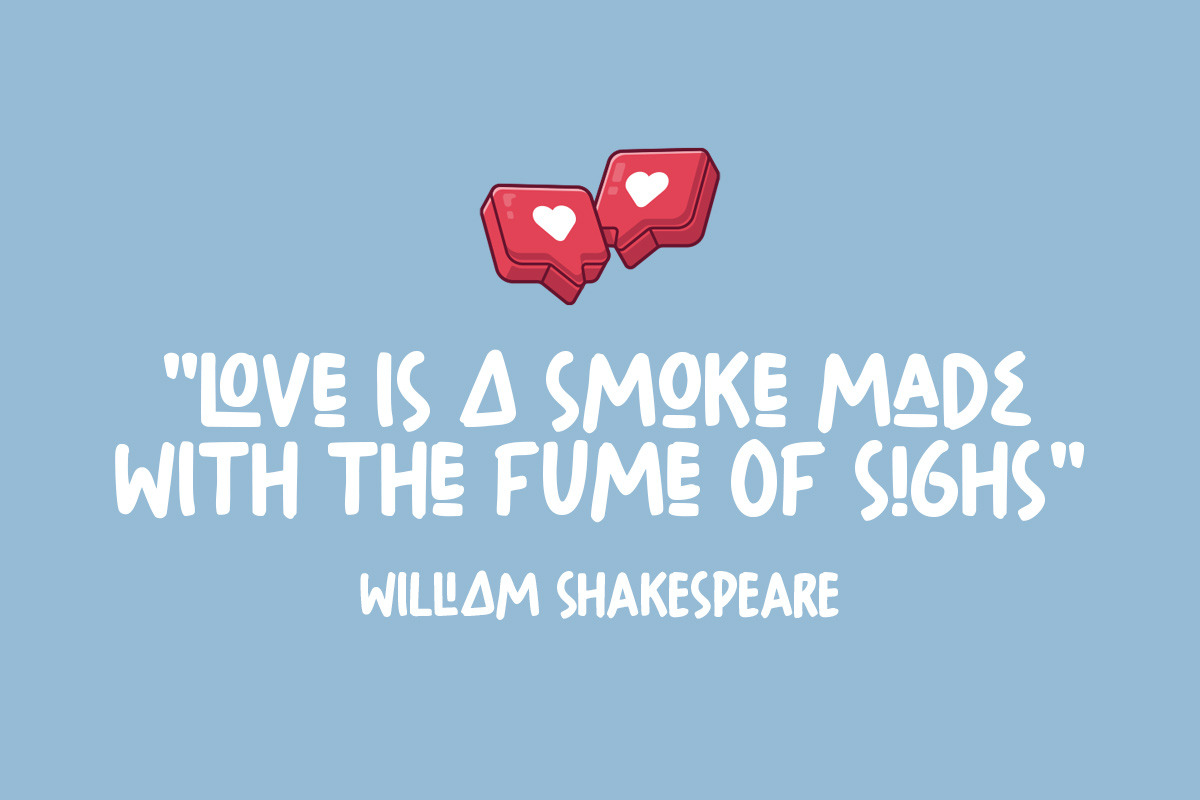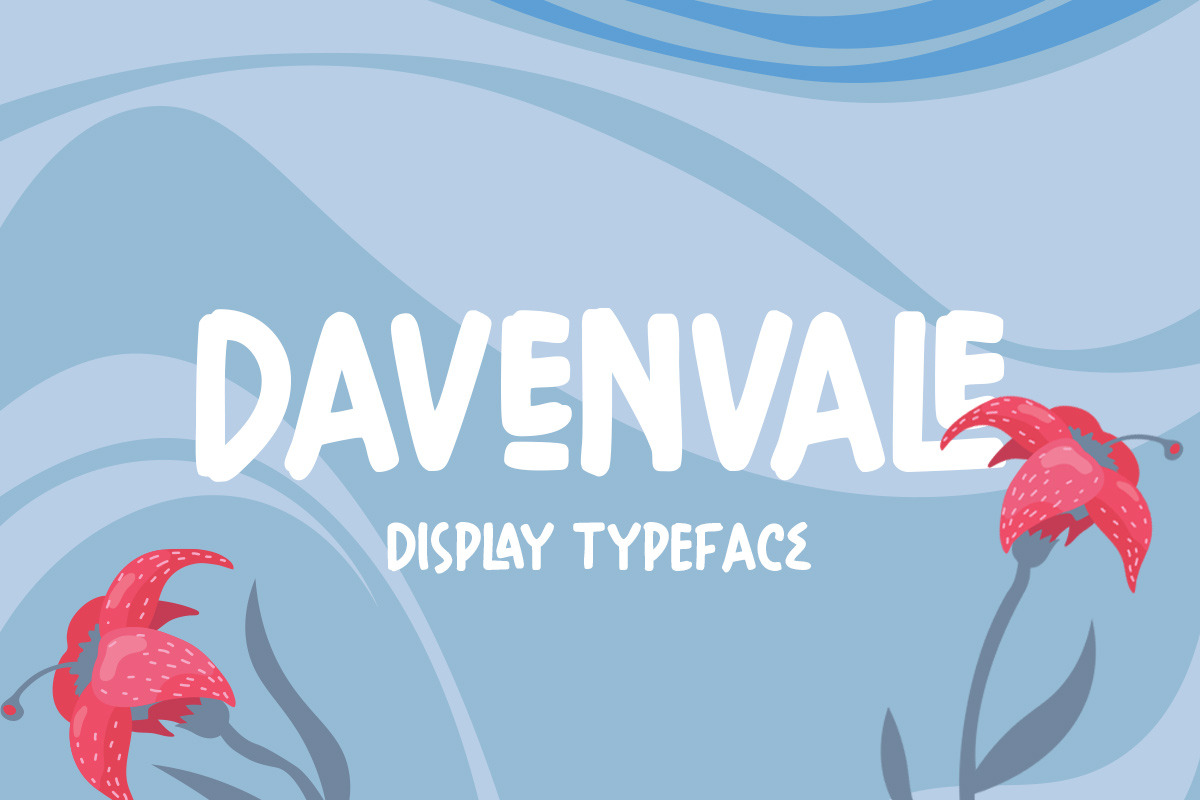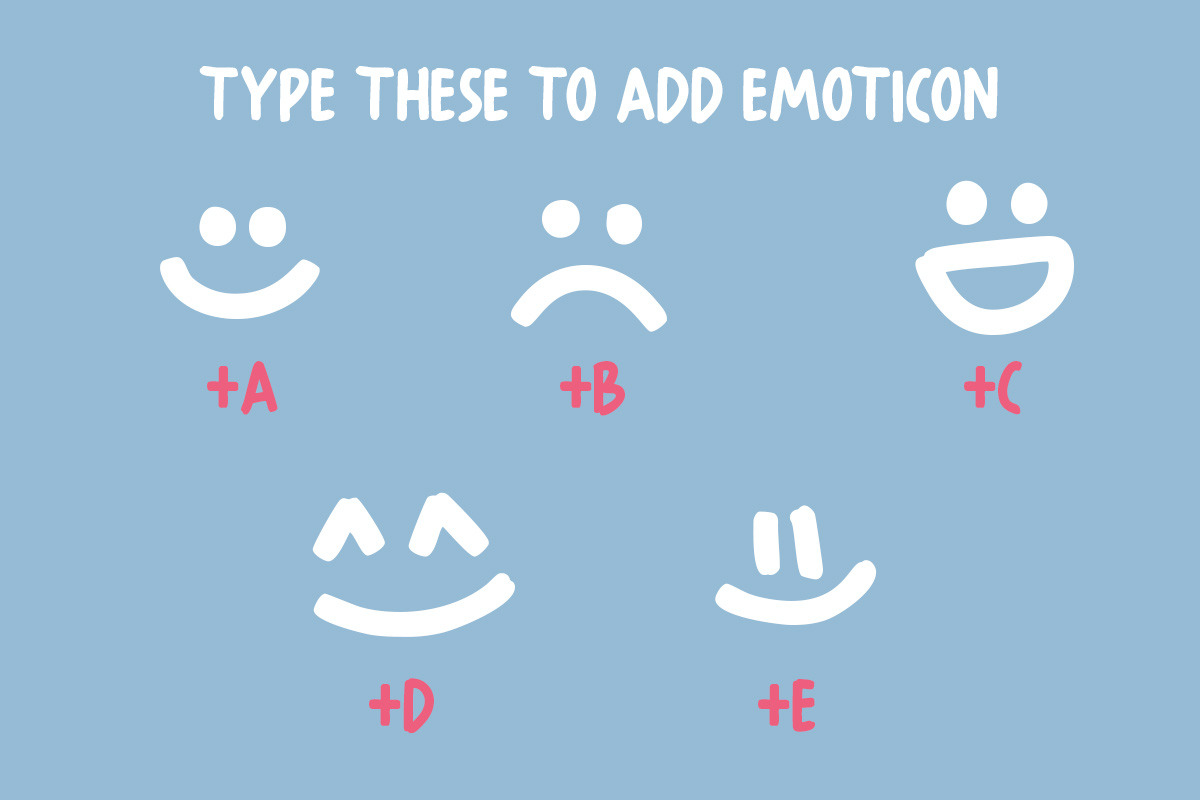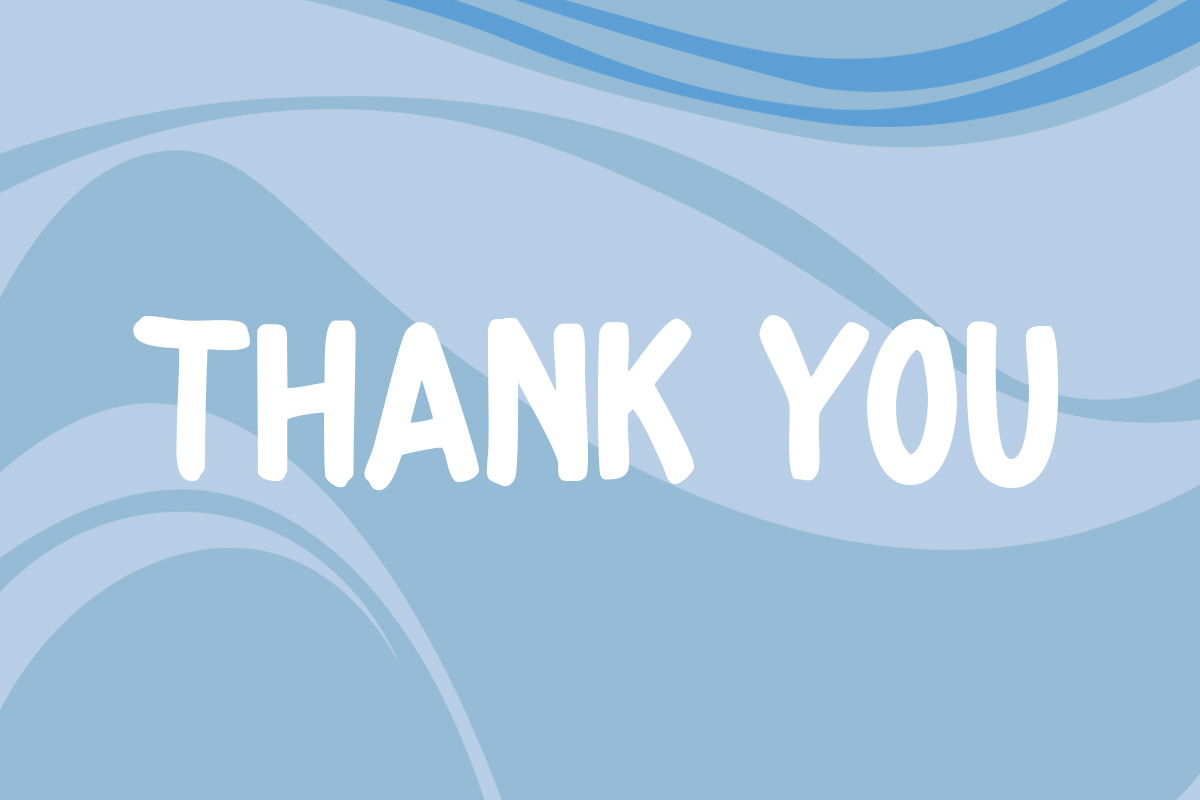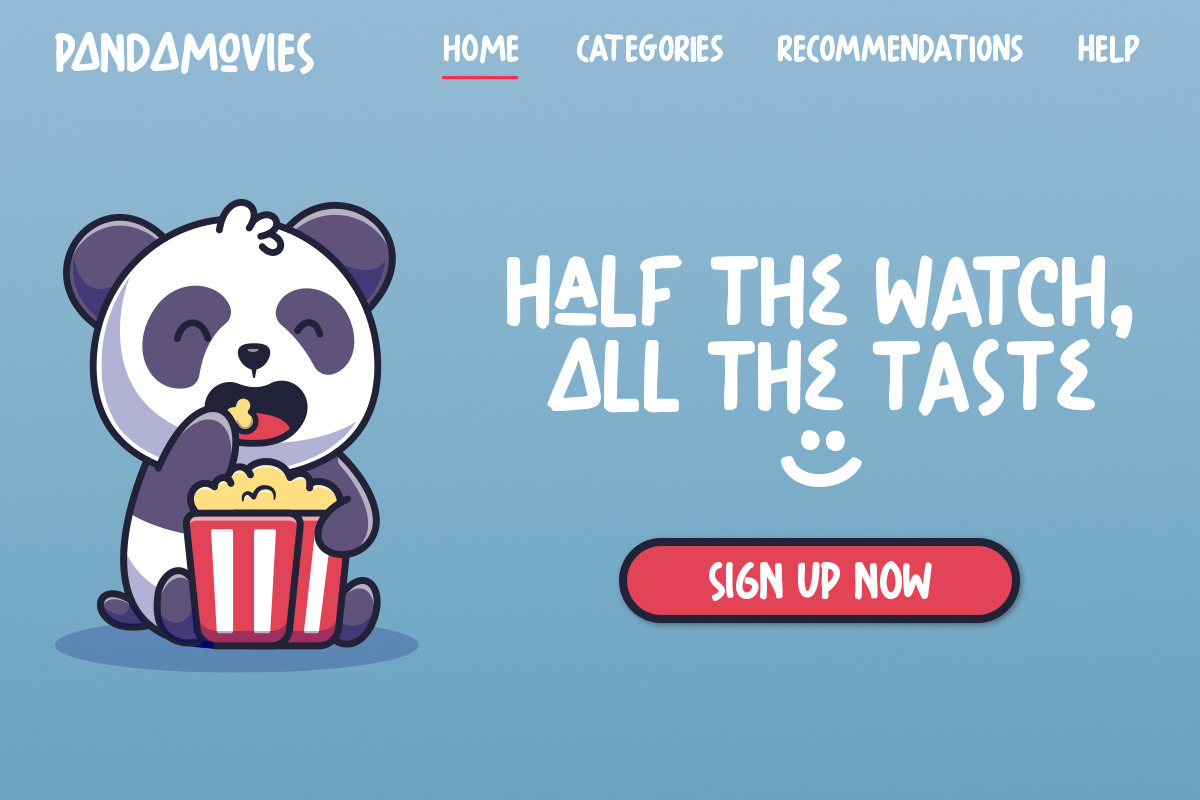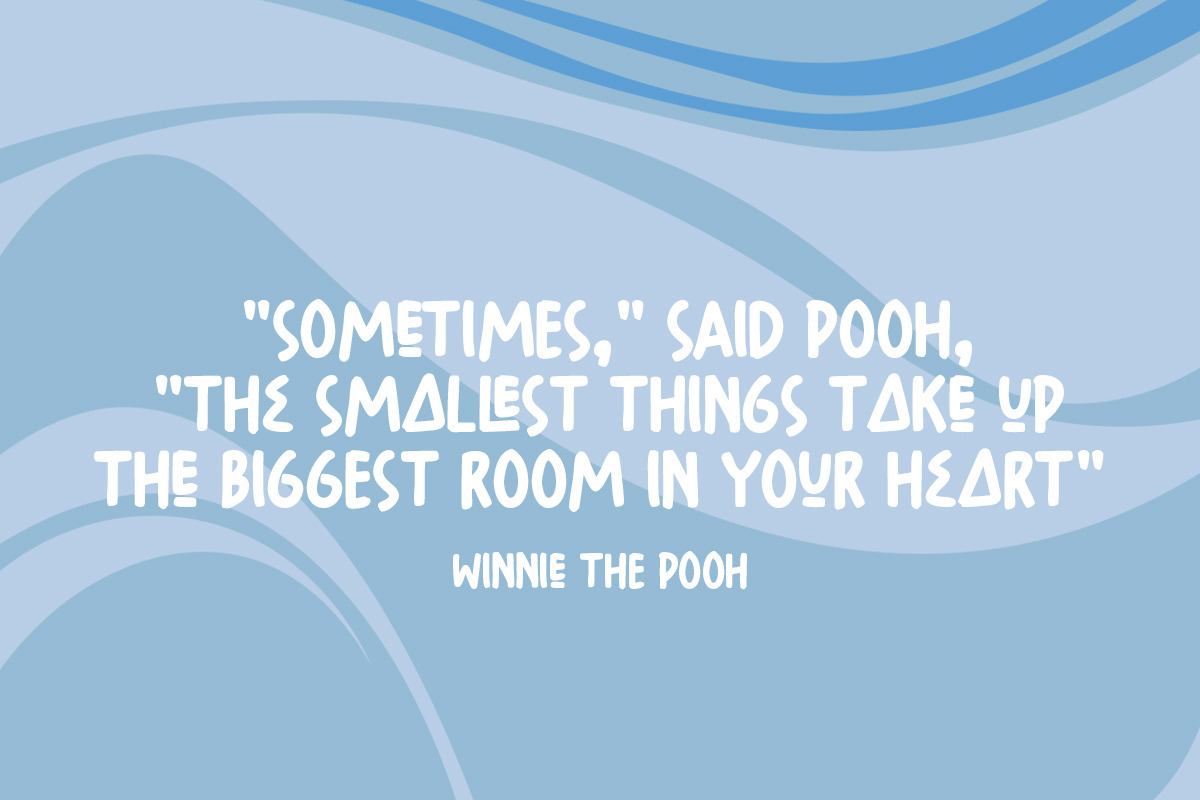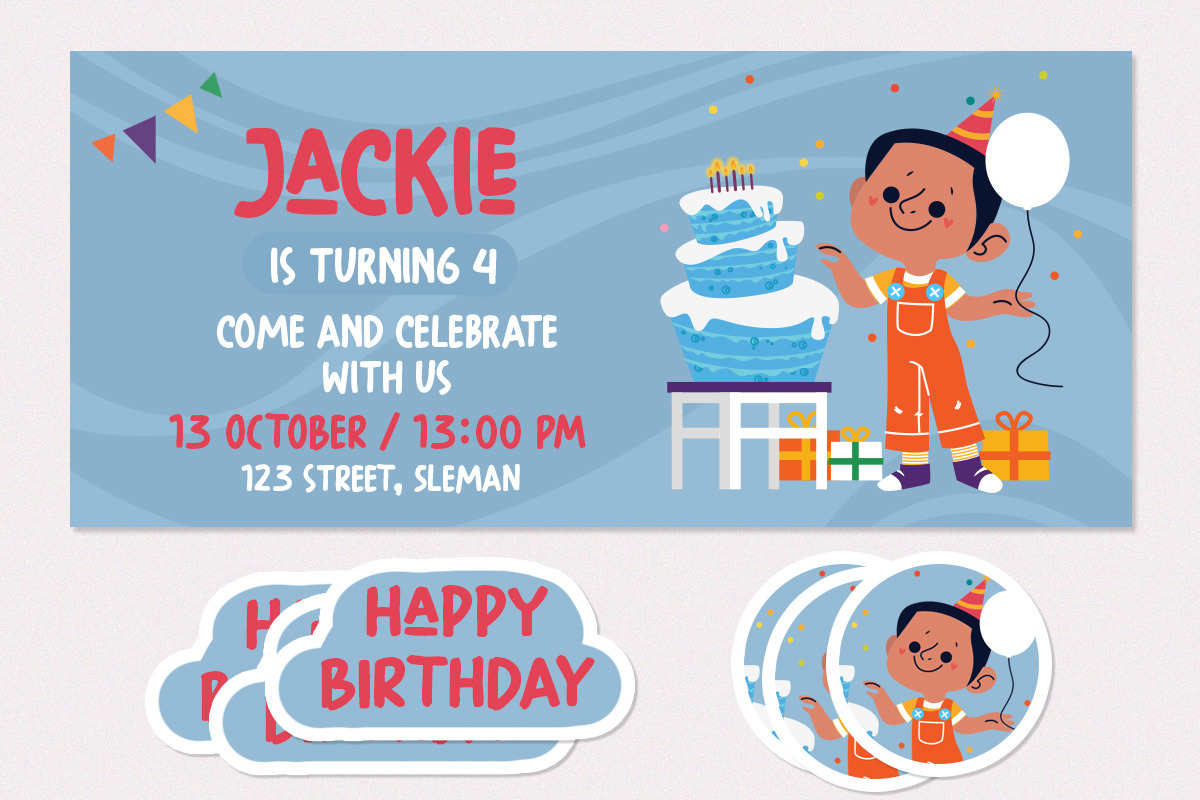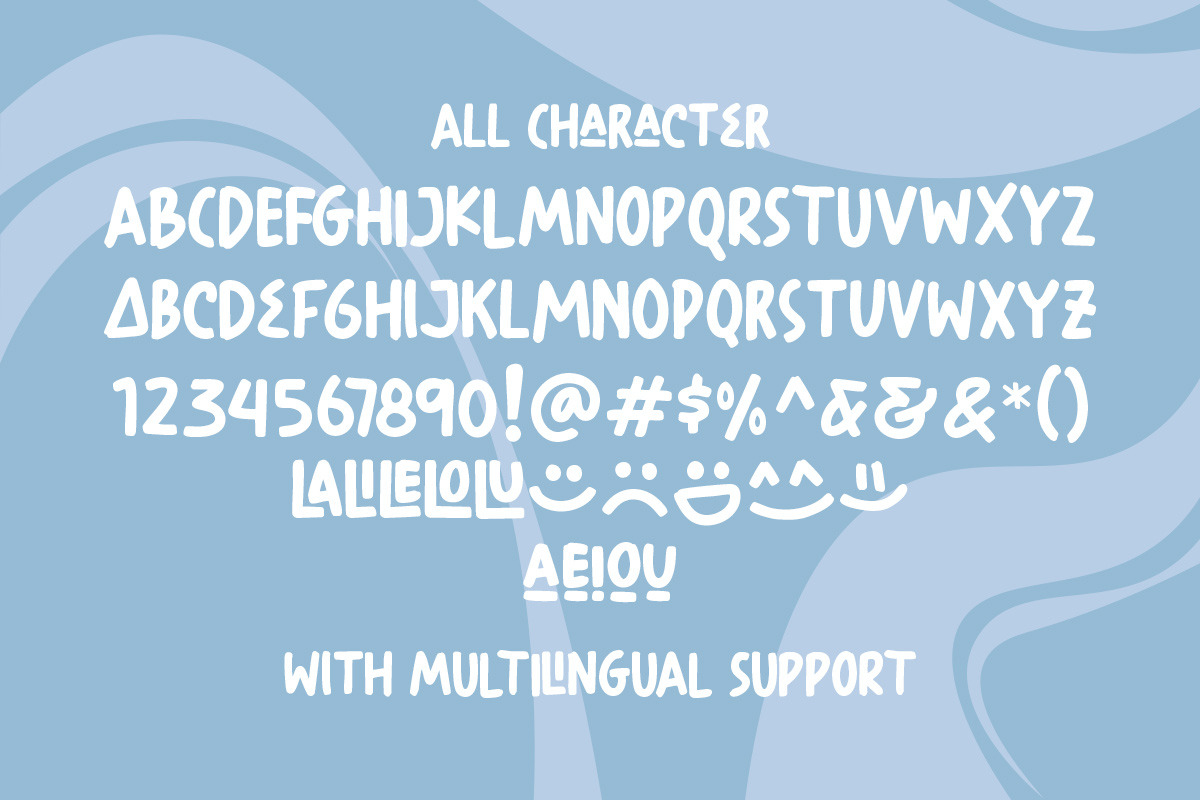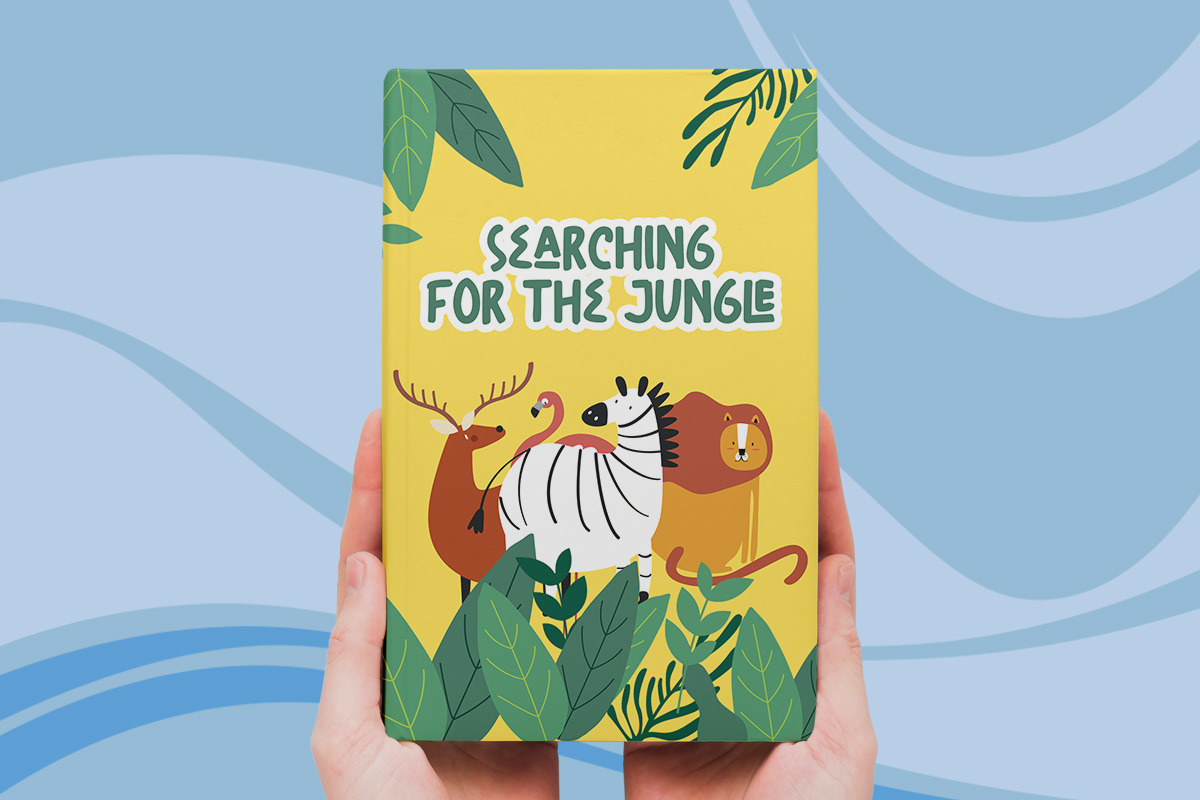
Davenvale - Display Typeface
Introducing, Davenvale Display Typeface. This font looks great and standout for tittle, headline, logo, etc. Perfectly to be applied to the other various formal forms such as invitations, labels, logos, magazines, books, greeting / wedding cards, packaging, fashion, make up, stationery, novels, labels or any type of advertising purpose.
- alternates & ligatures